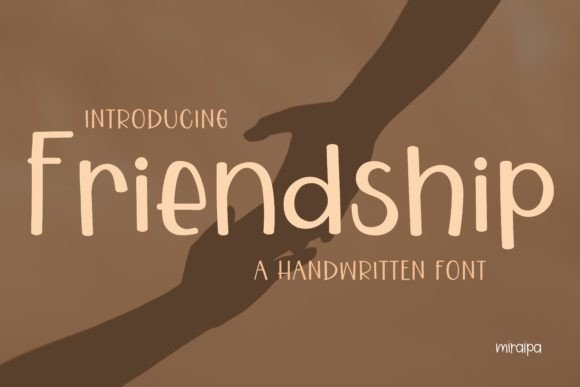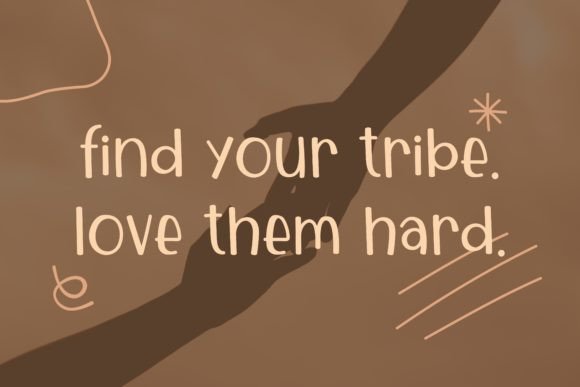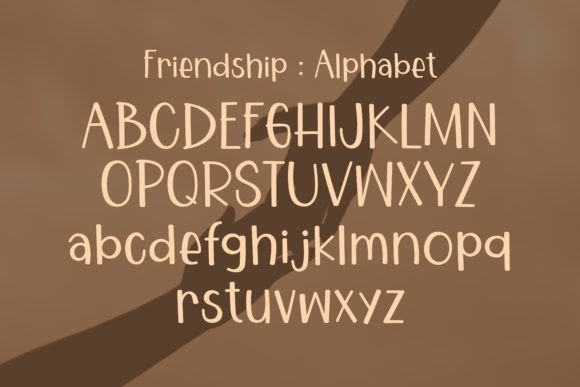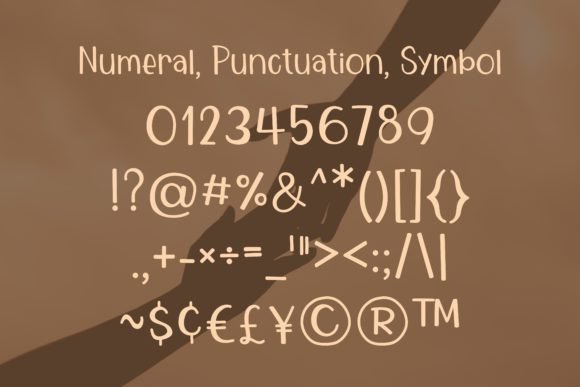
Friendship Font
About the Friendship Font
We are excited to introduce Friendship Font, a must-have typeface for any serious designer. Friendship is designed in a friendly and lovely Sans serif style. It would be awesome for your diary planner and journal, and also works great in back-to-school projects, weddings, party decorations, invitations, festivals, posters, blogs, clothing, child-related designs, greeting cards, social media posts, or anything that needs a friendly touch. Add it now to your fonts library, and it will bring any of your DIY projects to life.
Friendship Font’s friendly, rounded forms make it ideal for headlines, short paragraphs, and display text in projects requiring a warm and approachable feel. It excels in branding for children’s products, invitations, and social media graphics, bringing a playful yet sophisticated touch. However, its legibility suffers in extended body copy or UI applications demanding high readability at smaller sizes.
Pairing Friendship Font with a crisp, geometric sans-serif like Montserrat adds visual contrast and modernity, balancing its soft curves. For a more traditional feel, a classic serif like Garamond provides an elegant counterpoint, enhancing the font’s friendly personality without overwhelming it. Avoid pairing it with overly ornate scripts, which might detract from its inherent clarity.
The font’s overall personality is best described as cheerful and approachable, making it suitable for brands focused on playfulness, community, and connection. Its optimistic energy translates well into projects aimed at a younger demographic or those emphasizing positive emotion.
Friendship Font Usage Examples
Friendship Font Example